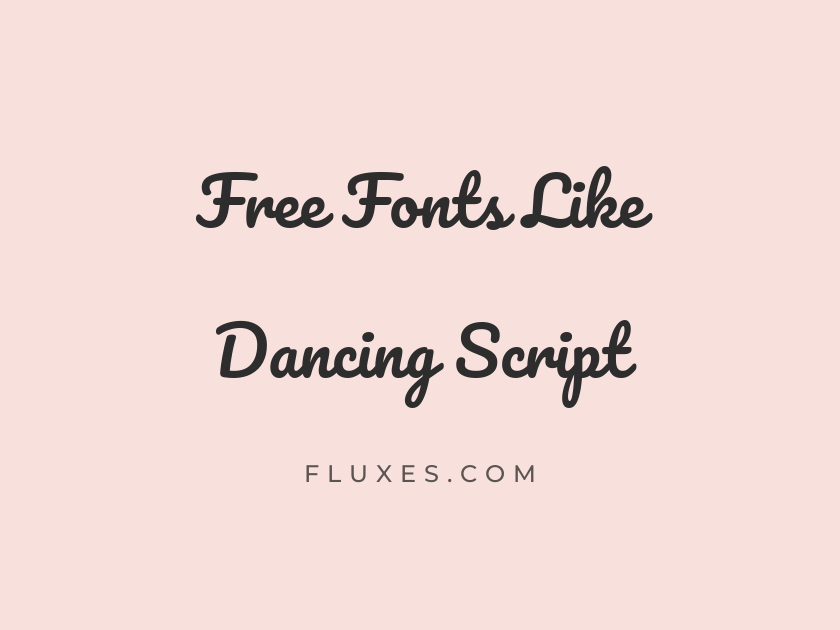
15 Best Free Fonts Similar to Dancing Script
Dancing Script built its reputation on that bouncy, hand-lettered warmth: casual enough for a greeting card, polished enough for a wedding suite. Its popularity means a lot of designers eventually go looking for something with a similar spirit but a different personality, whether that is a bit more restrained, a touch more formal, or simply a fresh face after Dancing Script shows up on one too many mood boards. The good news is that Google Fonts has a deep well of free script and casual handwriting fonts that share that same connected, joyful feeling.
The options below range from playful marker-style scripts to elegant calligraphic ones, all free to download and easy to pair with a clean sans serif for body copy.
1. Pacifico
Pacifico has the same rounded, friendly bounce as Dancing Script but with thicker strokes and a more retro, surfboard-lettering feel. It reads well at display sizes on logos, packaging, and social graphics, and its chunkiness holds up better than thinner scripts when scaled down for buttons or badges.
2. Satisfy
There is a loose, marker-like quality to Satisfy that makes it feel less formal than Dancing Script, more like a quick note scrawled on a card. It works nicely for casual branding, coffee shop menus, and blog headers where you want warmth without looking overly bridal.
3. Courgette
Courgette rounds off its letterforms into soft, pillowy shapes that feel approachable rather than romantic. It is a solid pick when you need a script that reads clearly even for readers unfamiliar with cursive lettering, since its joins stay open and legible.
4. Great Vibes
Great Vibes leans into full calligraphic elegance, with long entry strokes and delicate flourishes that make it a favorite for formal invitations. It is noticeably more refined than Dancing Script, so it suits monograms, save-the-dates, and certificate lettering better than casual UI work.
Pair it with a light serif like EB Garamond for body text, since its thin strokes can feel fragile at small sizes and need breathing room to shine.
5. Alex Brush
Modeled after traditional brush calligraphy, Alex Brush has a confident, sweeping quality that feels more like a signature than handwriting. It is a strong choice for logotypes and monograms where a single elegant word needs to carry visual weight.
6. Sacramento
Sacramento keeps its strokes thin and its letters upright, giving it a more restrained, vintage postcard feel than Dancing Script’s playful slant. It shines in short headlines and labels but can turn muddy in long passages, so keep it to a few words at a time.
7. Allura
Allura sits closer to formal wedding calligraphy, with tall ascenders and a graceful rhythm between letters. Designers often reach for it when Dancing Script feels too casual for the occasion but a fully traditional script like Edwardian Script feels unavailable or too ornate.
8. Parisienne
There is a soft, romantic drift to Parisienne, as if each letter leans gently into the next. It evokes vintage French stationery and works beautifully in pale, muted color palettes where subtlety matters more than boldness.
9. Yellowtail
Yellowtail keeps the same jaunty, upbeat energy as Dancing Script but with a slightly heavier stroke and a more retro surf-shop attitude. It is a dependable choice for casual logos and merchandise where personality matters more than formality.
10. Kristi
Kristi is thin, quick, and a little untidy in the most charming way, like handwriting dashed off in a hurry. It works best as an accent, a signature under a headline or a small flourish rather than a paragraph of text.
11. Cookie
Cookie brings a bubbly, informal charm with slightly heavier terminals than Dancing Script, giving it a bit more presence at small sizes. It is a natural fit for bakery branding, kids’ products, and anything that wants to feel homemade rather than polished.
12. Marck Script
Marck Script has an easy, unforced rhythm that feels closer to natural handwriting than formal calligraphy. Its moderate slant and consistent weight make it more legible in longer lines of text than many of its flashier cousins.
13. Norican
Norican stands apart with a bolder, more geometric take on script lettering, closer to vintage sign painting than delicate calligraphy. It pairs surprisingly well with clean grotesque sans serifs for a design that feels both handcrafted and contemporary.
14. Grand Hotel
Welcome to a night to remember
Grand Hotel carries a slightly retro, art deco confidence, with letters that lean and loop like vintage hotel signage. It suits branding for restaurants, boutiques, and events that want a touch of old-world glamour rather than soft romance.
15. Qwigley
Delicate lines, endless possibilities
Qwigley
Qwigley is one of the most delicate scripts in this group, with extremely thin, looping strokes that feel almost drawn with a fine nib. Reserve it for large display type or short phrases, since its fragility makes it disappear entirely at small sizes.
How to Use Script Fonts Like These
Script fonts work best in small doses. Save them for headlines, greetings, or a single accent word rather than full paragraphs.
Pair any of these with a simple, neutral sans serif or serif for body copy. This keeps the page readable while letting the script do the emotional heavy lifting.
Watch your sizing. Many of these free Google Fonts alternatives to Dancing Script have thin strokes that blur or clip at small pixel sizes, so test headings on both desktop and mobile before publishing.
Finally, mind the letter spacing. Connecting scripts can look cramped if tracking is too tight, so give them a little extra room to breathe.
Whether you need something bouncier, more formal, or simply different from the fonts everyone already recognizes, this collection gives you plenty of room to find a script that fits the tone of your project while keeping your download entirely free.